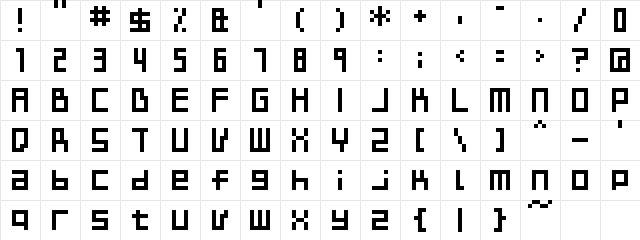
Jungle GymBitA6 Regular
Design Context for Jungle GymBitA6 Typeface
Jungle GymBitA6 takes a measured approach to typography — its balanced proportions and neutral character make it a reliable workhorse for both digital and print work.